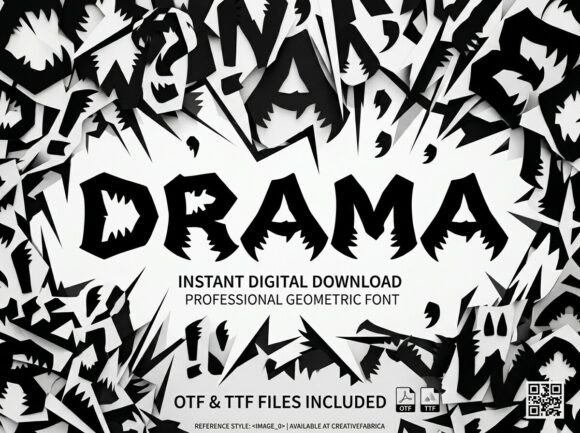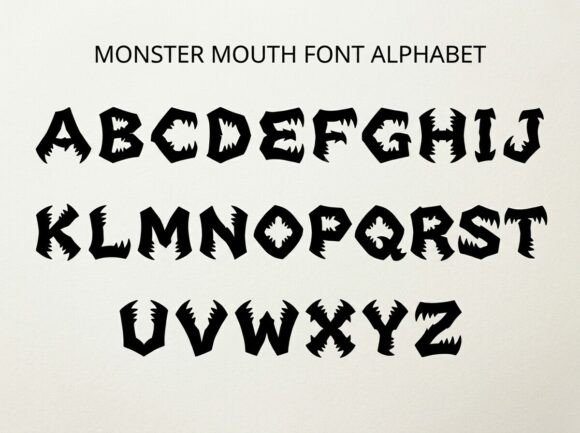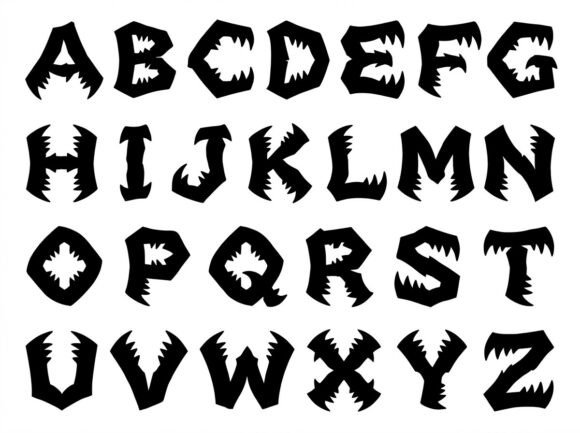
Unleash the Horror: Introducing Drama Font, the Ultimate Choice for Edgy Designs
Are you a designer or craft looking for a font that can add a touch of playful terror to your project? Look no further than Drama Font, a professional geometric typeface inspired by the jagged silhouettes of mythical creatures. This bold font is perfect for creating horror-themed branding, high-impact gaming logos, vibrant comic book titles, and edgy apparel designs that demand attention.
The Inspiration Behind Drama Font
Drama Font is a geometric font that draws inspiration from the sharp, angular shapes of mythical creatures. Its design is characterized by thick, angular letterforms with sharp, “toothed” negative spaces and aggressive, triangular terminals. This unique design gives Drama Font a heavy visual presence that is sure to make your project stand out.
Key Features of Drama Font
- Geometric Construction: Drama Font features a rhythmic, geometric construction that gives it a modern, artisanal charm.
- Sharp, Angular Letterforms: The font’s thick, angular letterforms are perfect for creating bold, eye-catching designs.
- “Toothed” Negative Spaces: The sharp, “toothed” negative spaces in Drama Font add a touch of edginess and horror-themed flair to your design.
- Aggressive, Triangular Terminals: The font’s aggressive, triangular terminals give it a sense of monstrous energy that’s perfect for horror-themed branding.
Use Cases for Drama Font
Drama Font is an incredibly versatile typeface that can be used in a variety of design projects, including:
- Horror-Themed Branding: Create a logo or brand identity that demands attention and inspires fear with Drama Font.
- High-Impact Gaming Logos: Add a touch of edginess to your gaming logo with Drama Font’s bold, geometric design.
- Vibrant Comic Book Titles: Use Drama Font to create eye-catching comic book titles that pop off the page.
- Edgy Apparel Design: Create bold, eye-catching apparel designs with Drama Font’s unique, geometric style.
Perfect for Indie Game Developers and Dark-Themed Events
Drama Font is the perfect choice for indie game developers looking to create a logo or brand identity that stands out from the crowd. Its bold, geometric design and monstrous energy make it an excellent choice for horror-themed games, while its modern, artisanal charm ensures it will appeal to a wide range of gamers.
Drama Font is also perfect for dark-themed events, such as Halloween parties or haunted house attractions. Use it to create eye-catching headers, posters, or flyers that will grab attention and set the tone for a spooky evening.
Why Choose Drama Font?
So why choose Drama Font for your next design project? Here are just a few reasons:
- Unique Design: Drama Font features a unique, geometric design that’s sure to make your project stand out.
- High-Impact Visual Presence: The font’s bold, angular letterforms and sharp, “toothed” negative spaces create a high-impact visual presence that’s perfect for grabbing attention.
- Versatility: Drama Font can be used in a wide range of design projects, from horror-themed branding to edgy apparel design.
- Modern, Artisanal Charm: The font’s geometric construction and bold design give it a modern, artisanal charm that’s perfect for designers and crafters.
If you’re looking for a font that can add a touch of playful terror to your design project, look no further than Drama Font. Its unique, geometric design, bold letterforms, and sharp, “toothed” negative spaces make it the perfect choice for horror-themed branding, high-impact gaming logos, vibrant comic book titles, and edgy apparel design. With its versatility, modern artisanal charm, and high-impact visual presence, Drama Font is sure to unleash a sense of monstrous energy in your next design project.